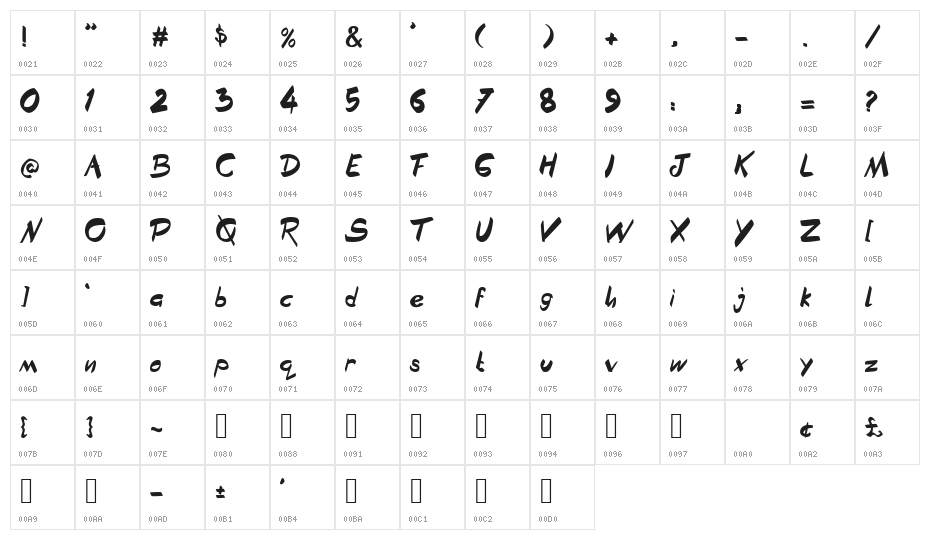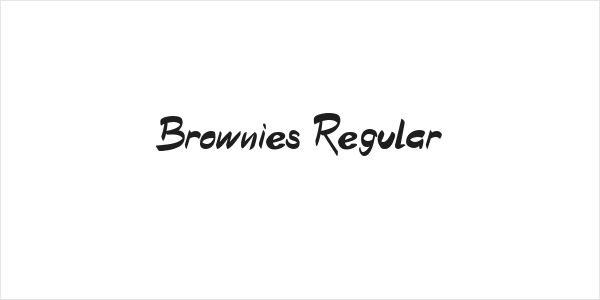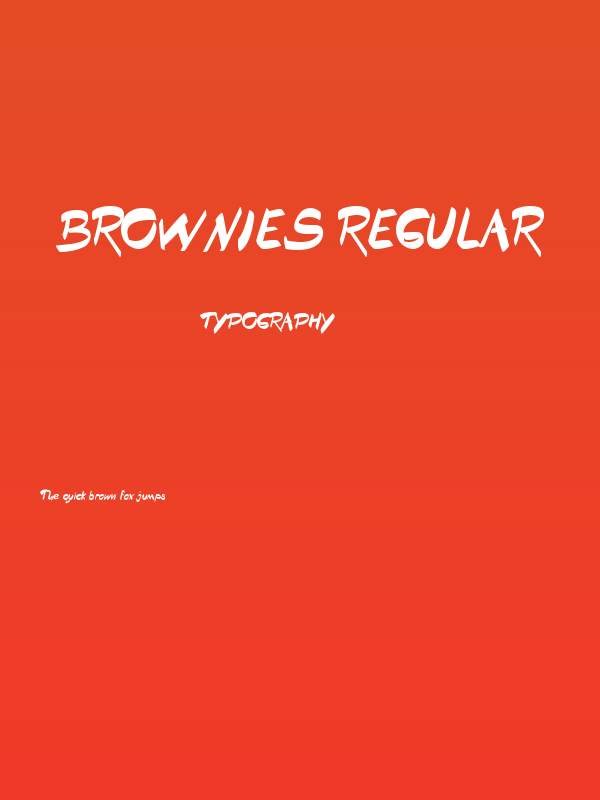
Brownies Regular Font
Brownies Regular Description
This font features a bold, dynamic style with a handwritten flair. The characters are slightly slanted, giving a sense of movement and energy. The strokes are thick and consistent, creating a strong visual impact. The uppercase letters are bold and prominent, while the lowercase letters maintain a playful yet cohesive look. Numbers and special characters follow the same bold and expressive design, making them stand out. This font is ideal for projects that require a personal touch with a modern twist.
Proposed ProjectsIdeal for branding, posters, social media graphics, and any project needing a bold, personal touch.